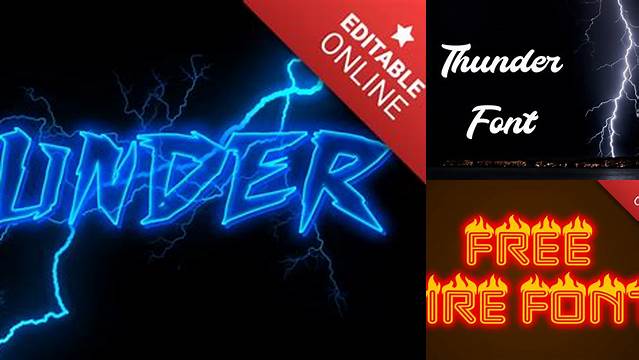
Free Fire Thunder Font: Get It Now!
Hey guys! Are you looking to spice up your Free Fire game with some seriously cool fonts? You know, make your in-game name, your guild messages, or even your social media posts about Free Fire pop? Well, you've come to the right place! We're diving deep into the world of thunder font styles for Free Fire, showing you how to snag them for free and use them to make your mark in the game. Forget the boring old default fonts β letβs get electrified!
Why Thunder Font Styles?
So, why all the fuss about thunder font styles anyway? It's simple: personalization. In a game as massive as Free Fire, where millions of players are battling it out, standing out is key. A unique font style is a fantastic way to express your individuality and make a statement. Think of it as your digital signature β a way for other players to instantly recognize you and remember your name. Thunder fonts, with their edgy, powerful, and dynamic look, perfectly capture the intensity of the game. They add an extra layer of coolness and can even intimidate your opponents before the match even begins! Plus, let's be honest, who doesn't want their name to look like it's crackling with energy?
Beyond just looking cool, using a thunder font can also enhance your in-game identity. Imagine your squadmates seeing your name in a striking thunder font β it instantly boosts morale and creates a sense of unity. Or picture your opponents trembling as they see your name blazing across the kill feed. A well-chosen font can be a powerful psychological tool, giving you an edge in the arena. And let's not forget the social media aspect. Sharing your Free Fire achievements with a thunder font adds a touch of flair to your posts, making them more engaging and shareable. So, whether you're aiming to dominate the battlefield or just want to look awesome while doing it, thunder font styles are a must-have for any serious Free Fire player.
Finding Free Thunder Font Styles
Alright, so you're sold on the idea of thunder fonts, but where do you find them without spending a dime? The good news is, there are plenty of resources out there offering free thunder font styles for Free Fire. You just need to know where to look. One of the most popular methods is using online font generators. These websites allow you to type in your desired text and then convert it into various stylish fonts, including those with a thunder or lightning effect. Many of these generators are completely free to use and offer a wide range of customization options, allowing you to tweak the font to your exact liking.
Another great resource is mobile apps specifically designed for creating stylish fonts. These apps, available on both Android and iOS, often come with a library of pre-designed thunder fonts that you can easily copy and paste into Free Fire. Some apps even allow you to create your own custom fonts from scratch, giving you ultimate control over your in-game appearance. When searching for these font resources, be sure to read reviews and check ratings to ensure you're using a safe and reliable source. You don't want to download anything that could compromise your device or your game account. Also, keep an eye out for websites and forums dedicated to Free Fire. Players often share their favorite font styles and resources in these communities, providing a valuable source of information and inspiration. With a little bit of searching, you'll be able to find the perfect thunder font to electrify your Free Fire experience.
How to Use Thunder Fonts in Free Fire
Customizing Your Thunder Font
Want to take your thunder font game to the next level? Customization is key! While many font generators and apps offer a variety of pre-designed thunder fonts, you can often tweak them further to create a truly unique look. Experiment with different font sizes to find the perfect balance between readability and visual impact. A font that's too small might be difficult to see, while a font that's too large could clutter your screen.
Also, consider adding symbols and special characters to your thunder font. Many font generators offer a library of symbols that you can easily insert into your text. These symbols can add an extra layer of personality and visual interest to your font. For example, you could add lightning bolt symbols, stars, or other decorative elements to enhance the thunder effect. Play around with different color combinations to create a font that truly pops. Some font generators allow you to change the color of the font itself, as well as the background color. Experiment with contrasting colors to make your font stand out, or use complementary colors to create a more harmonious look. Keep in mind that the colors you choose should be visible and easy to read against the in-game background. Finally, don't be afraid to get creative and experiment with different font styles and effects. Try combining different thunder fonts, adding shadows or outlines, or even creating your own custom font from scratch. The possibilities are endless, so let your imagination run wild and create a thunder font that truly reflects your unique style.
Staying Safe and Legit
Before you go wild with thunder fonts, let's talk about safety and legitimacy. It's crucial to use font generators and apps from trusted sources to avoid downloading malware or compromising your account. Always read reviews and check ratings before installing any new software. Also, be wary of websites that ask for your Free Fire login credentials in exchange for font styles. This is a common phishing scam, and you should never share your login information with untrusted sources. It's important to note that while using custom fonts is generally allowed in Free Fire, you should avoid using fonts that could be considered offensive or inappropriate. Garena, the developer of Free Fire, has the right to ban players who violate their terms of service, so it's best to err on the side of caution. Stick to fonts that are respectful and in line with the game's community guidelines.
While customizing your fonts, be mindful of readability. While a super fancy font might look cool, it's useless if nobody can read it. Choose fonts that are clear and easy to decipher, especially when it comes to your in-game name. You want other players to be able to recognize you, not squint and scratch their heads. Always test your font in different in-game scenarios to make sure it's visible and legible. By following these simple guidelines, you can enjoy the benefits of thunder fonts while staying safe and legit in the Free Fire world.
So, there you have it β everything you need to know about thunder font styles for Free Fire! With a little creativity and the right resources, you can easily transform your in-game appearance and stand out from the crowd. Remember to prioritize safety, choose fonts that reflect your personality, and have fun experimenting with different styles and customizations. Now go out there and electrify the battlefield with your awesome thunder font!